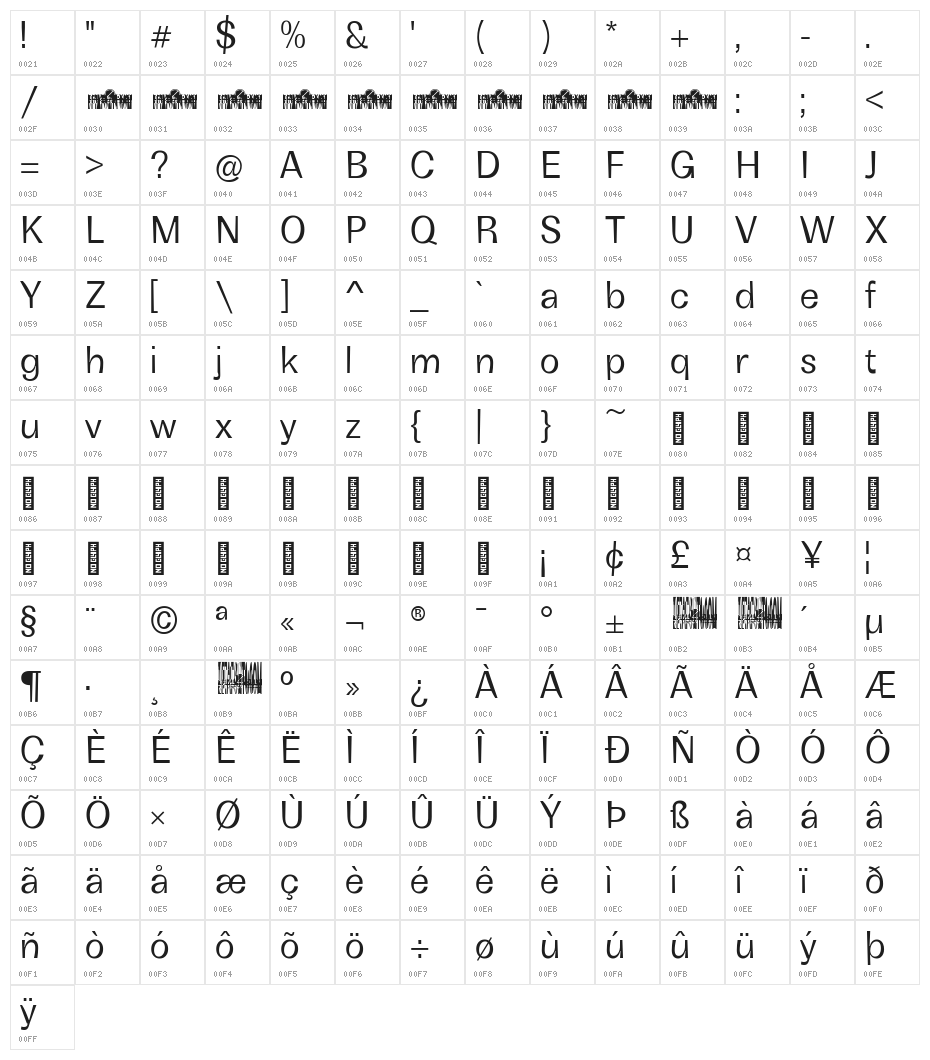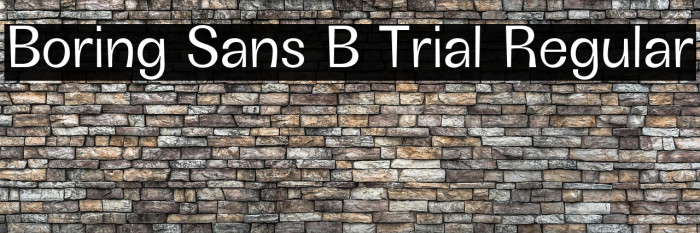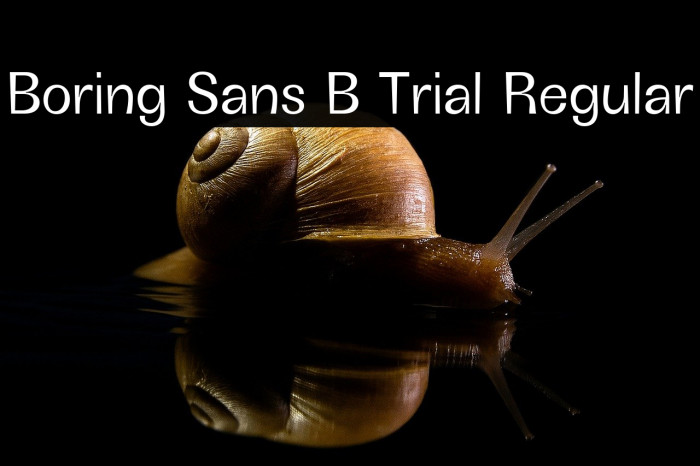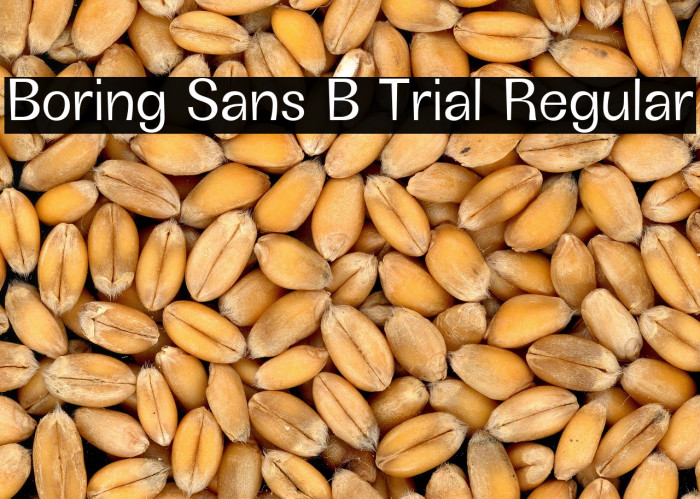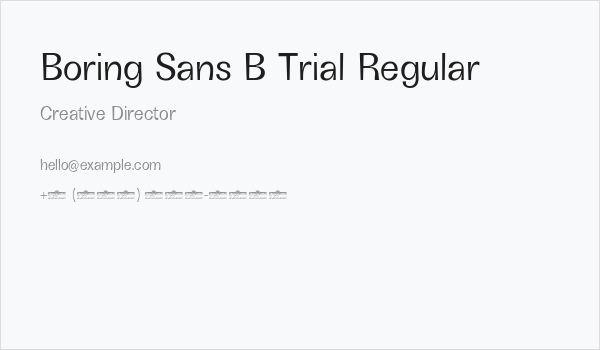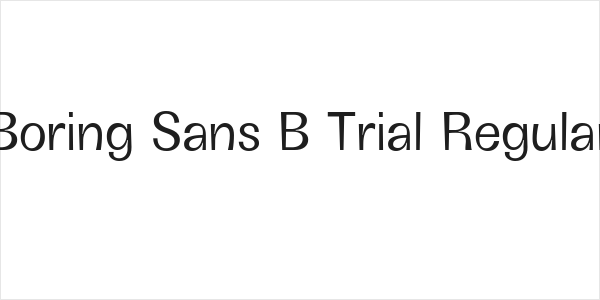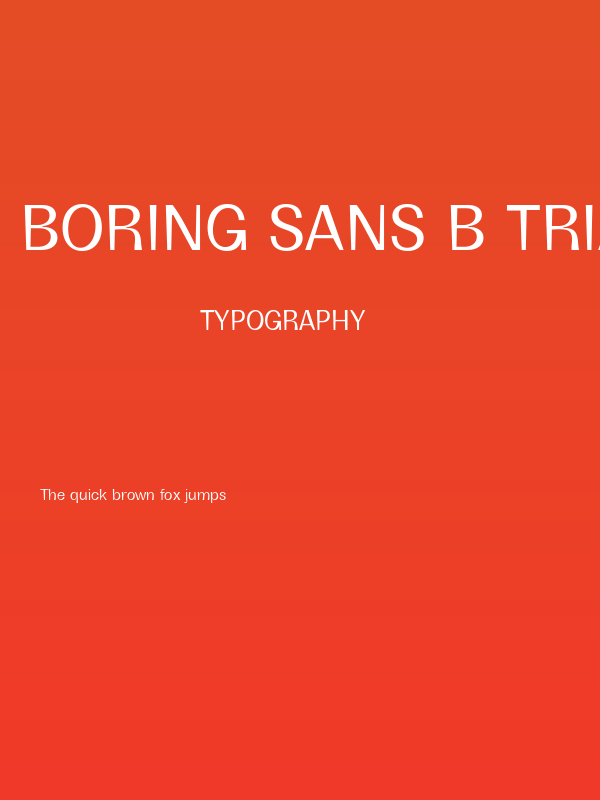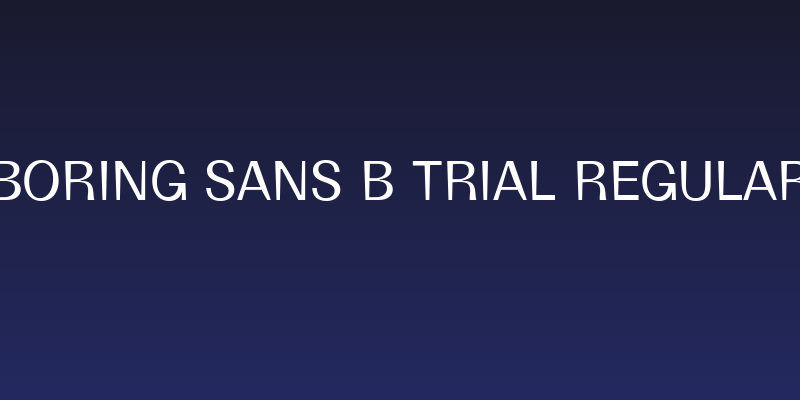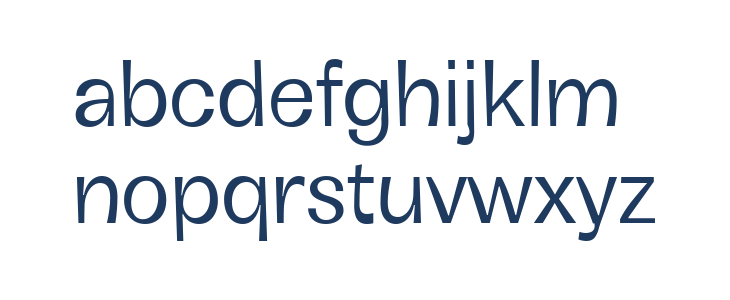
Boring Sans B Trial Regular Font
Boring Sans B Trial Regular Description
This typeface features a clean and straightforward design, characterized by its sans-serif style. The letters are evenly spaced with a consistent stroke width, offering a modern and minimalist appearance. The uppercase and lowercase letters maintain a uniform height, enhancing readability. The numerals and special characters are designed to match the overall aesthetic, providing a cohesive look across all elements. This font is versatile, suitable for both digital and print media, and can be used effectively in various design contexts.